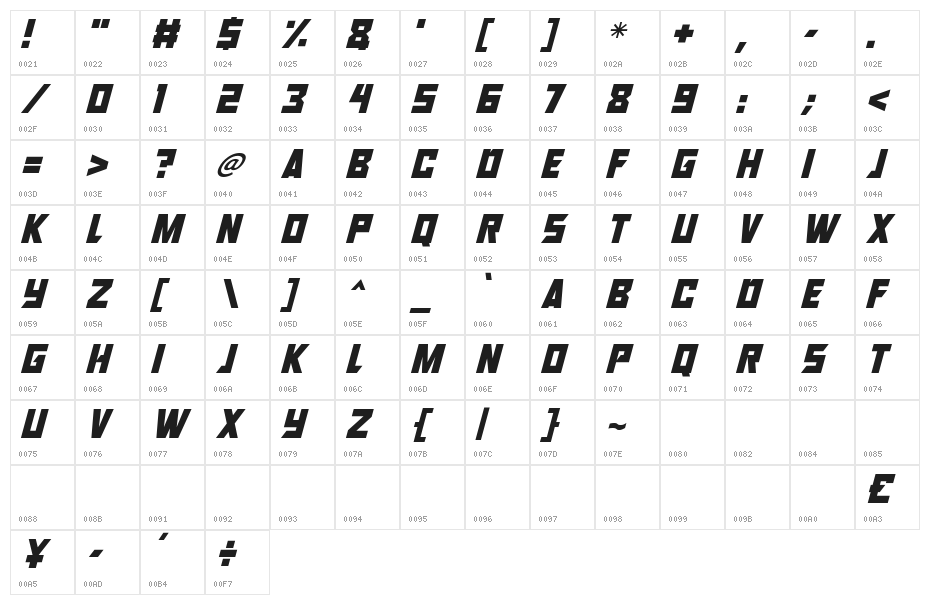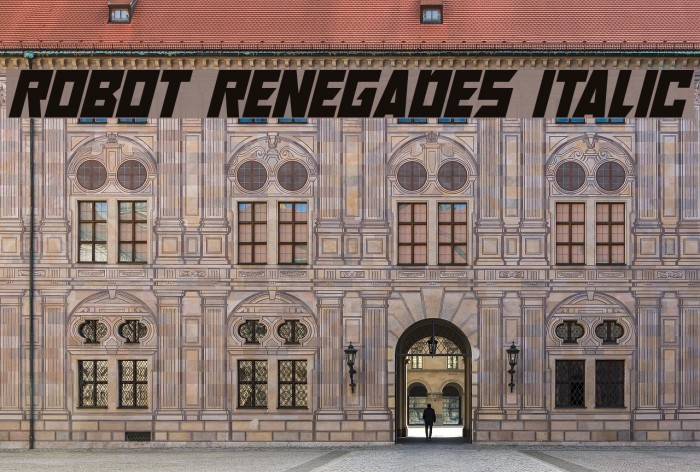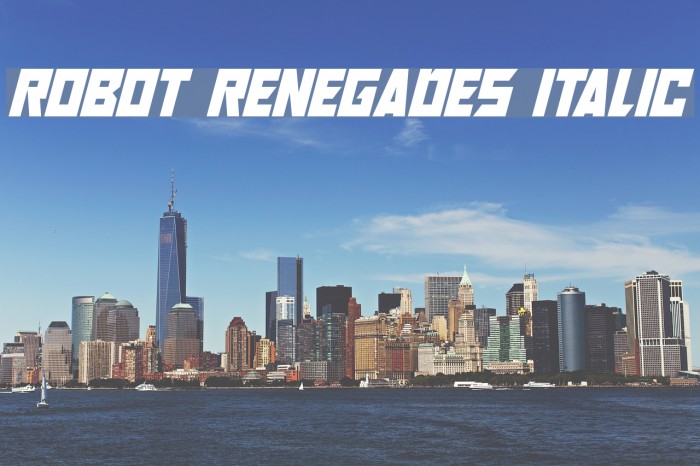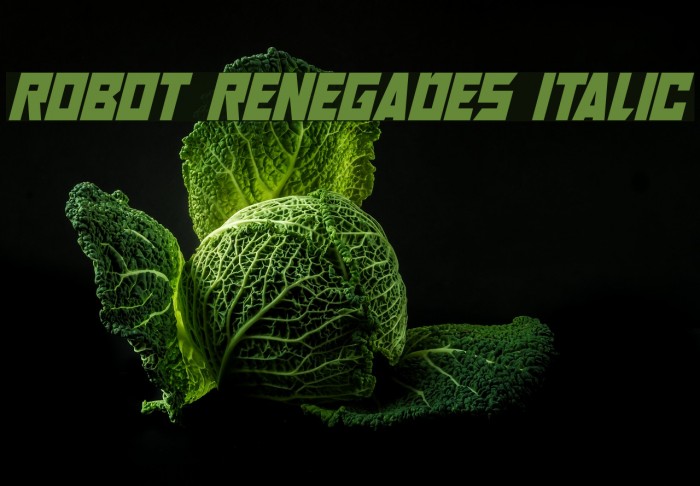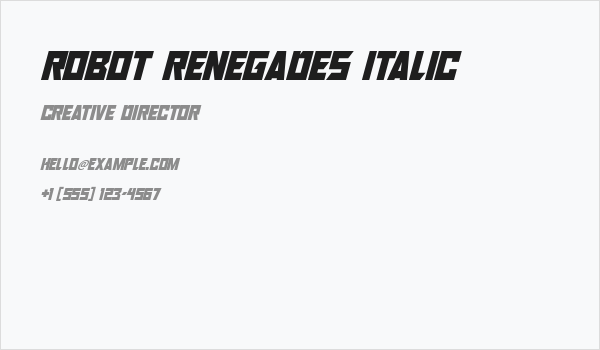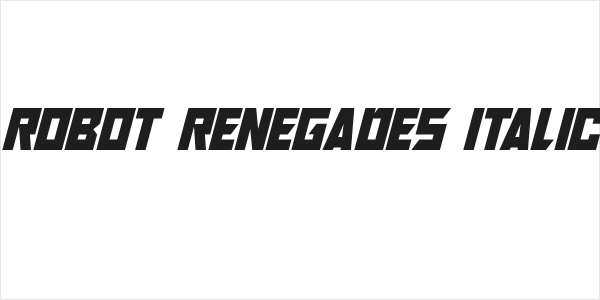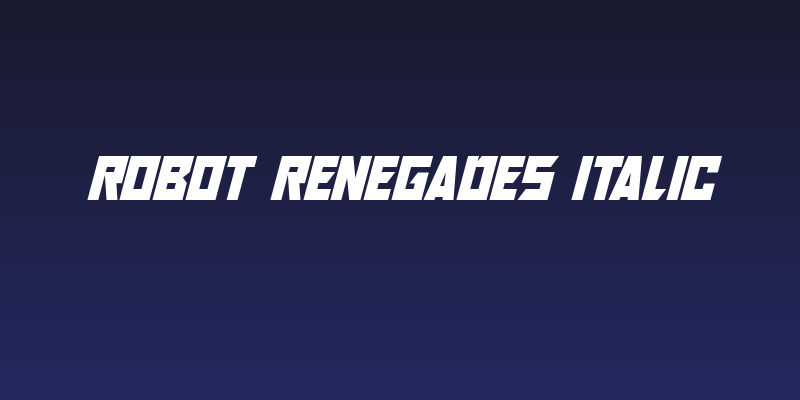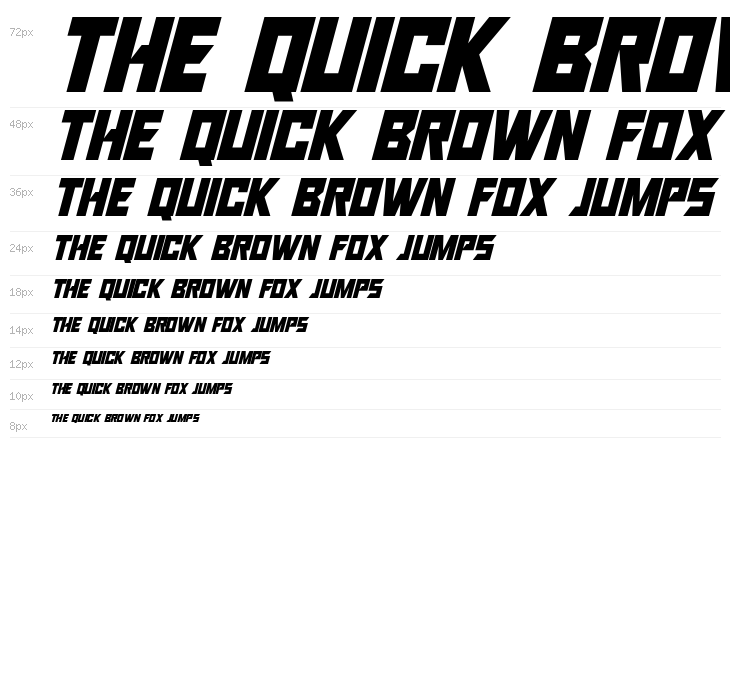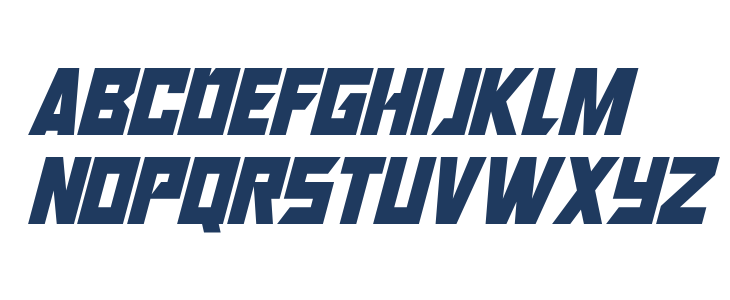
Robot Renegades Italic Font
Robot Renegades Italic Description
This font features a bold and dynamic design with a futuristic and angular aesthetic. The characters are sharply defined with a distinct slant, giving them a sense of motion and energy. The uppercase letters are particularly striking, with strong geometric shapes and a consistent italicized angle. The numbers and special characters maintain this bold style, ensuring a cohesive look across all glyphs. The font's design is reminiscent of sci-fi themes, making it ideal for projects that require a modern and edgy appearance.
| Proposed Projects | Ideal for sci-fi themed posters, video game titles, tech branding, and futuristic event flyers. |